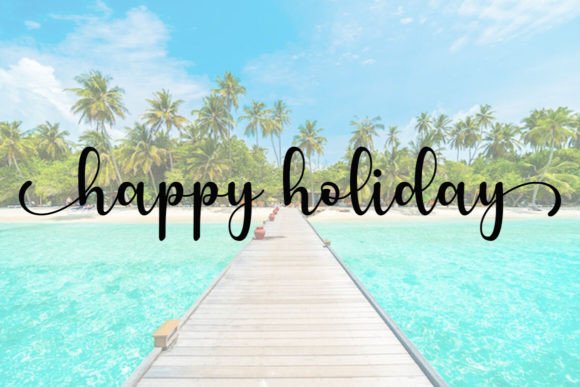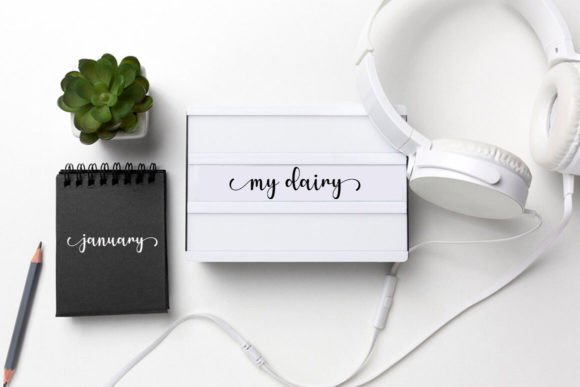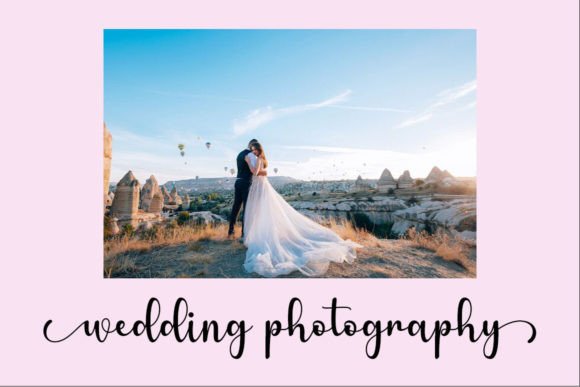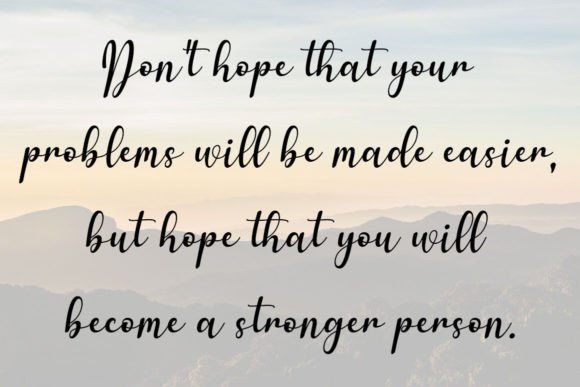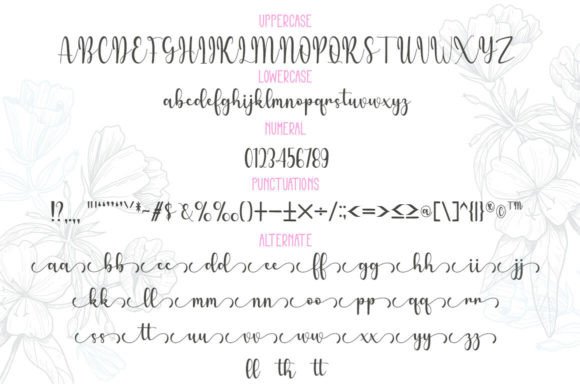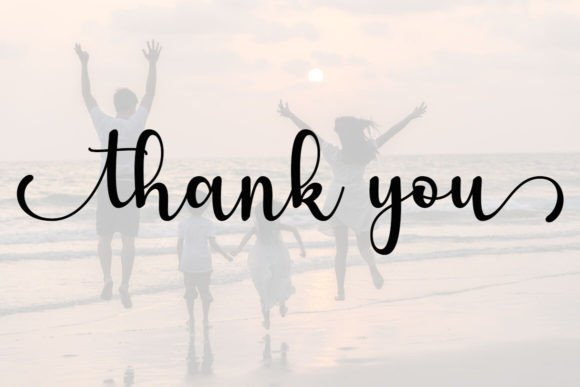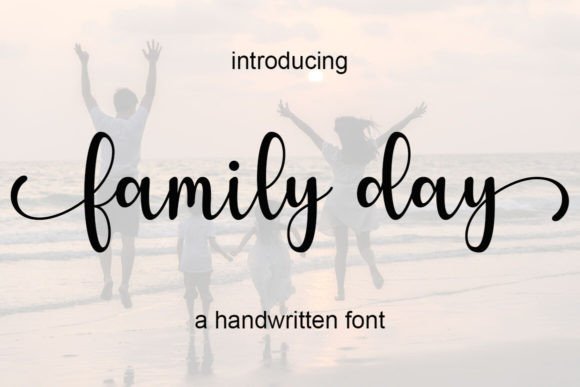
Introducing Family Day Font: The Perfect Handwritten Companion for Your Creative Projects
Are you on the hunt for a font that can add a touch of elegance and whimsy to your designs? Look no further than the Family Day Font, an enchanting handwritten font that’s perfect for a wide range of creative projects. From logos and branding to quotes, clothing, tote bags, business cards, and websites, this versatile font is sure to become your new favorite companion.
What Makes Family Day Font So Special?
Family Day Font is more than just a pretty face – it’s a highly functional and versatile font that’s designed to help you take your projects to the highest level. Here are just a few of the features that make it so special:
• Handwritten charm: Family Day Font has a beautiful, handwritten aesthetic that’s perfect for adding a personal touch to your designs.
• Wide range of uses: Whether you’re working on a logo, branding project, or social media graphic, Family Day Font is the perfect choice. It’s also great for crafters who want to add a personal touch to their DIY projects.
Family Day Font is a dream come true for designers and crafters who want to add a touch of elegance and whimsy to their projects. Here are just a few ways you can use this amazing font:
• Logos and branding: Use Family Day Font to create a custom logo or branding package that’s both elegant and eye-catching.
• Clothing and accessories: Add a personal touch to your clothing and accessories with custom designs featuring Family Day Font.
• Business cards and stationery: Use Family Day Font to create beautiful business cards, letterheads, and other stationery items.
• Websites and social media: Add a touch of elegance to your website or social media graphics with Family Day Font.
• DIY projects: Use Family Day Font to add a personal touch to your DIY projects, such as tote bags, journals, and other handmade items.
Why Choose Family Day Font?
With so many fonts on the market, why choose Family Day Font? Here are just a few reasons why this font stands out from the crowd:
• Unique and eye-catching: Family Day Font has a unique and eye-catching aesthetic that’s sure to grab attention.
• Versatile: Family Day Font can be used for a wide range of projects, from logos and branding to DIY crafts.
Get Ready to Fall in Love with Family Day Font
With its beautiful handwritten aesthetic, PUA encoding, and versatility, Family Day Font is the perfect choice for designers and crafters who want to add a touch of elegance and whimsy to their projects. Whether you’re working on a logo, branding project, or DIY craft, this font is sure to become your new favorite companion. So why wait? Fall in love with Family Day Font today and take your projects to the highest level!
In conclusion, Family Day Font is an enchanting handwritten font that’s perfect for a wide range of creative projects. With its unique and eye-catching aesthetic, PUA encoding, and versatility, it’s the perfect choice for designers and crafters who want to add a touch of elegance and whimsy to their designs. So why wait? Get your hands on Family Day Font today and start creating amazing projects!